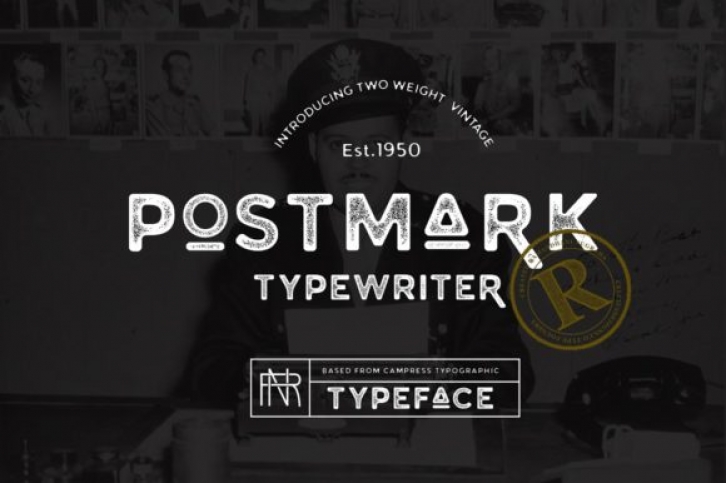
Postmark is a rough and unfiltered display font that will add a nostalgic feel to any design project. It will look its best in any vintage-themed design project!